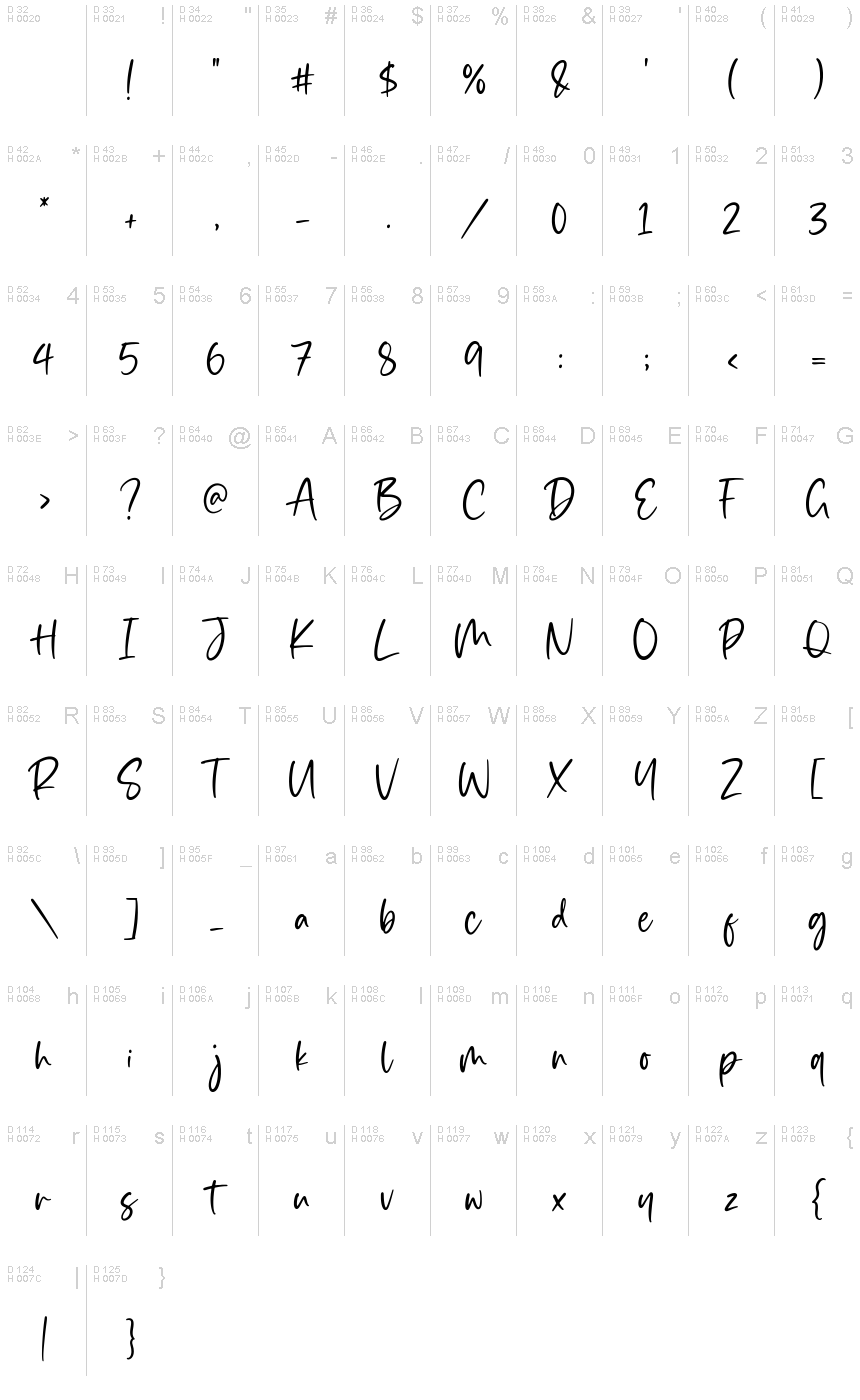
Simplesky
Simplesky, designed by Timur Type, is a handwritten font that exudes a casual yet sophisticated charm. Its fluid strokes and variable line thickness evoke the spontaneity of pen on paper, giving it a personal touch that resonates with warmth and authenticity. The effortless flow of Simplesky's letters provides a sense of intimacy and approachability, making it an ideal choice for designs that require a human touch.
Perfect for branding, invitations, or any project needing an infusion of personality, Simplesky bridges the gap between traditional elegance and contemporary flair. It's the handwritten whisper in a world clamoring for attention—a font that speaks softly but leaves a lasting impression.